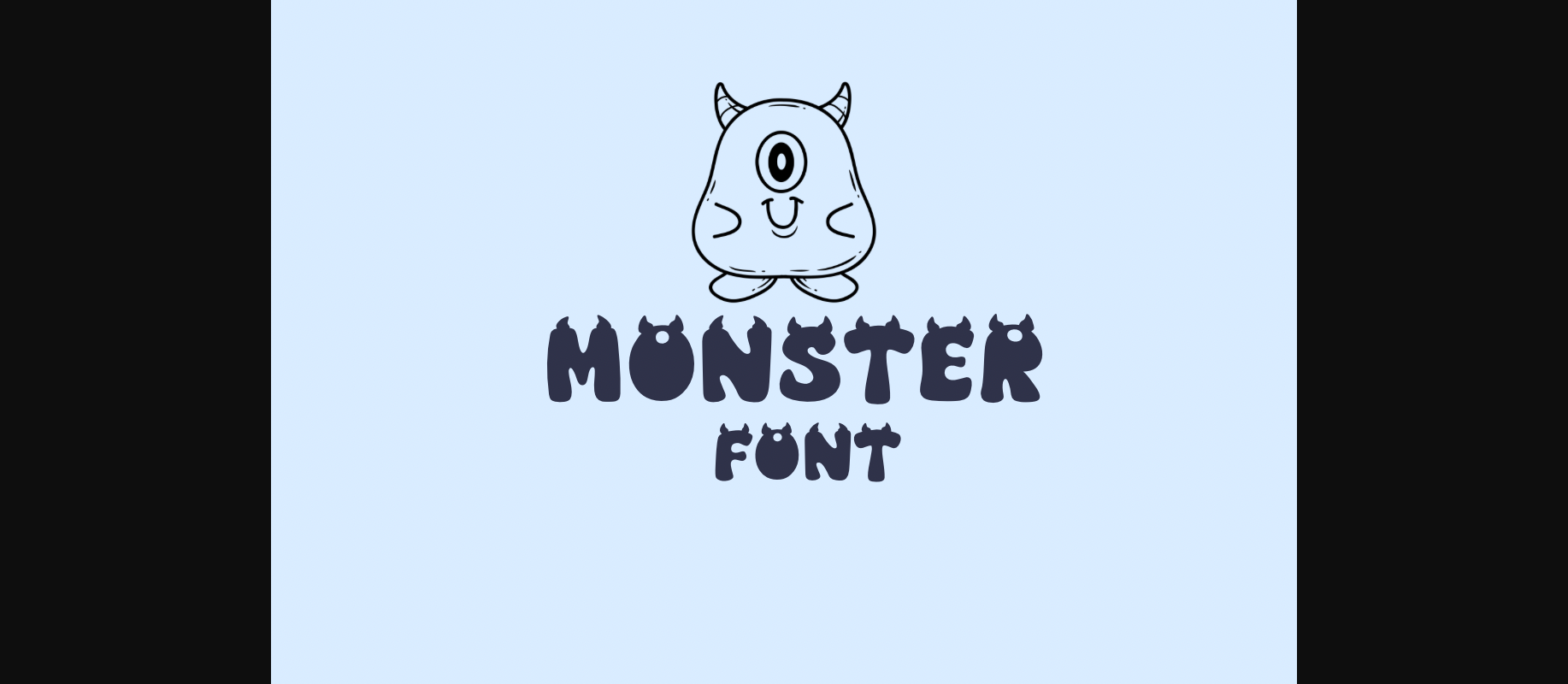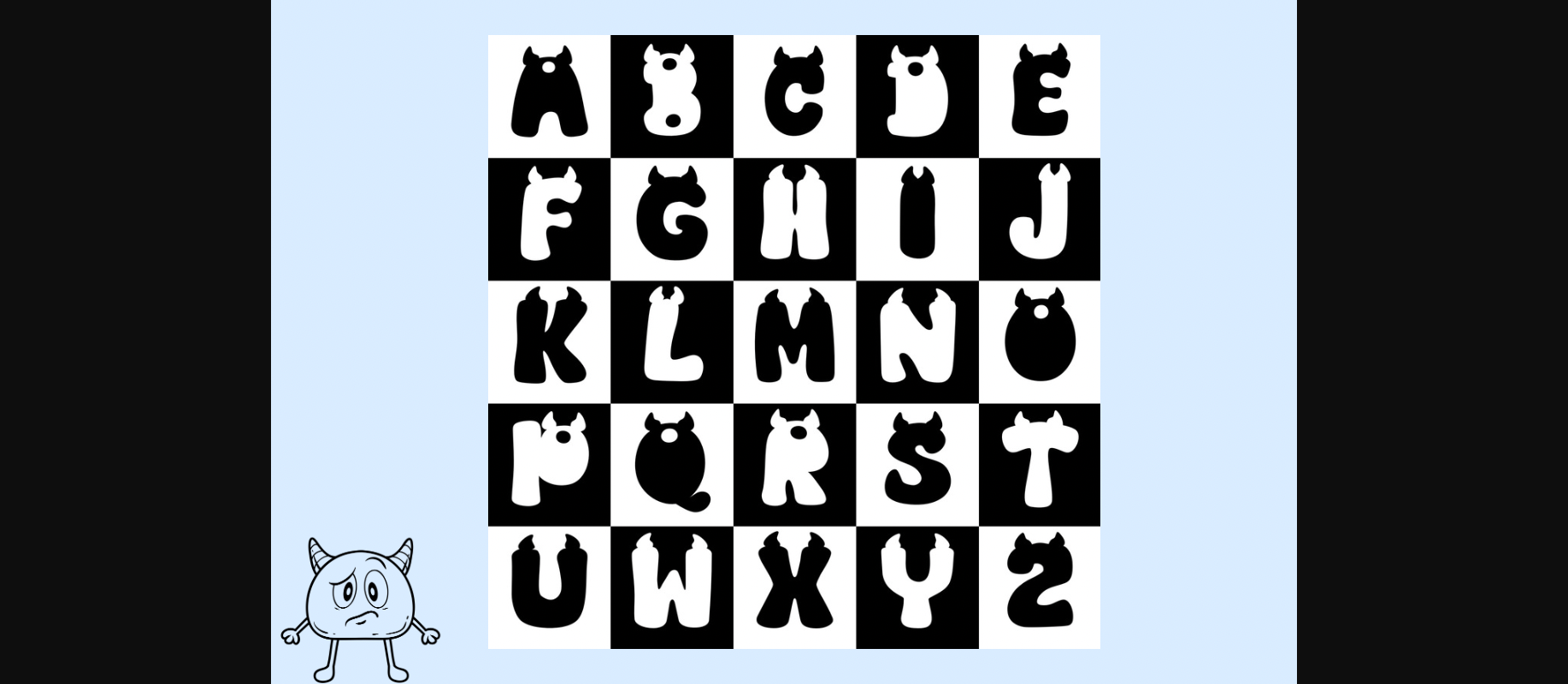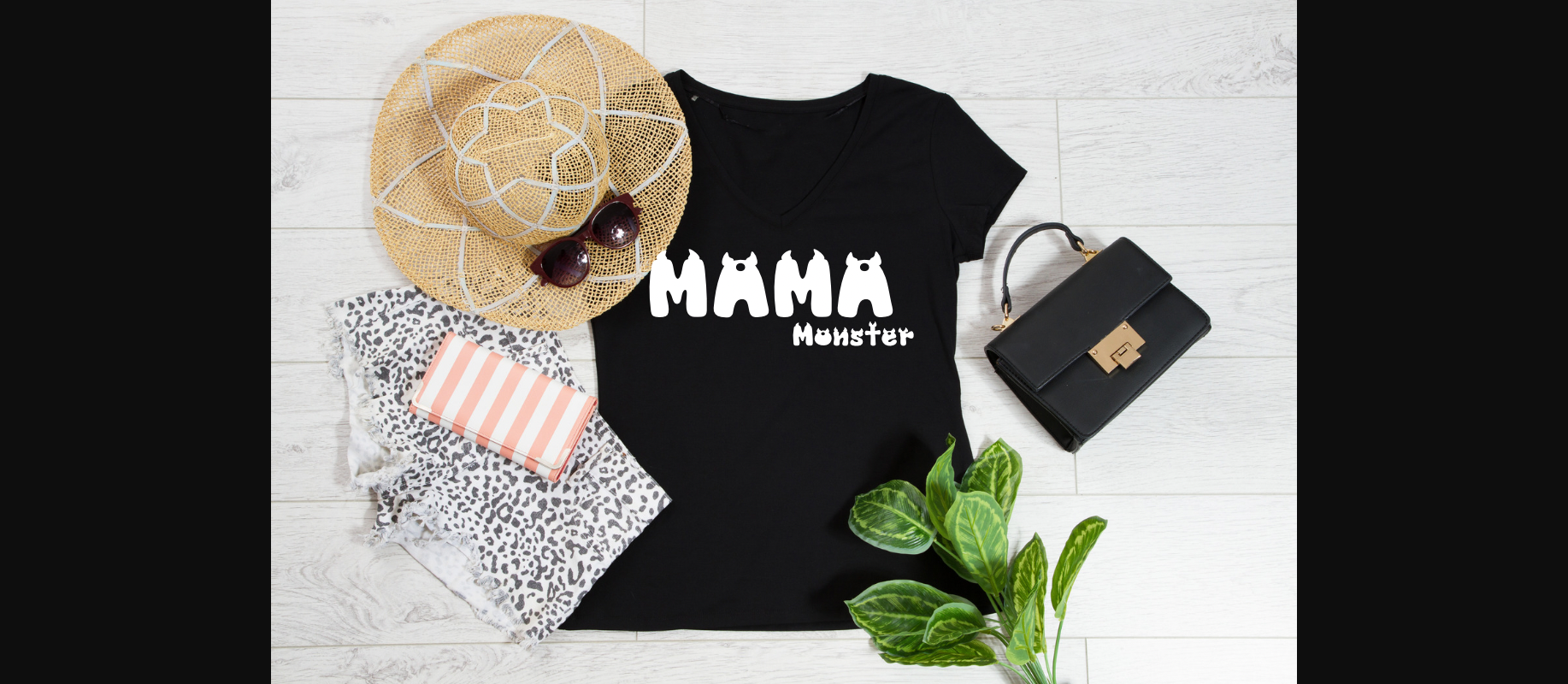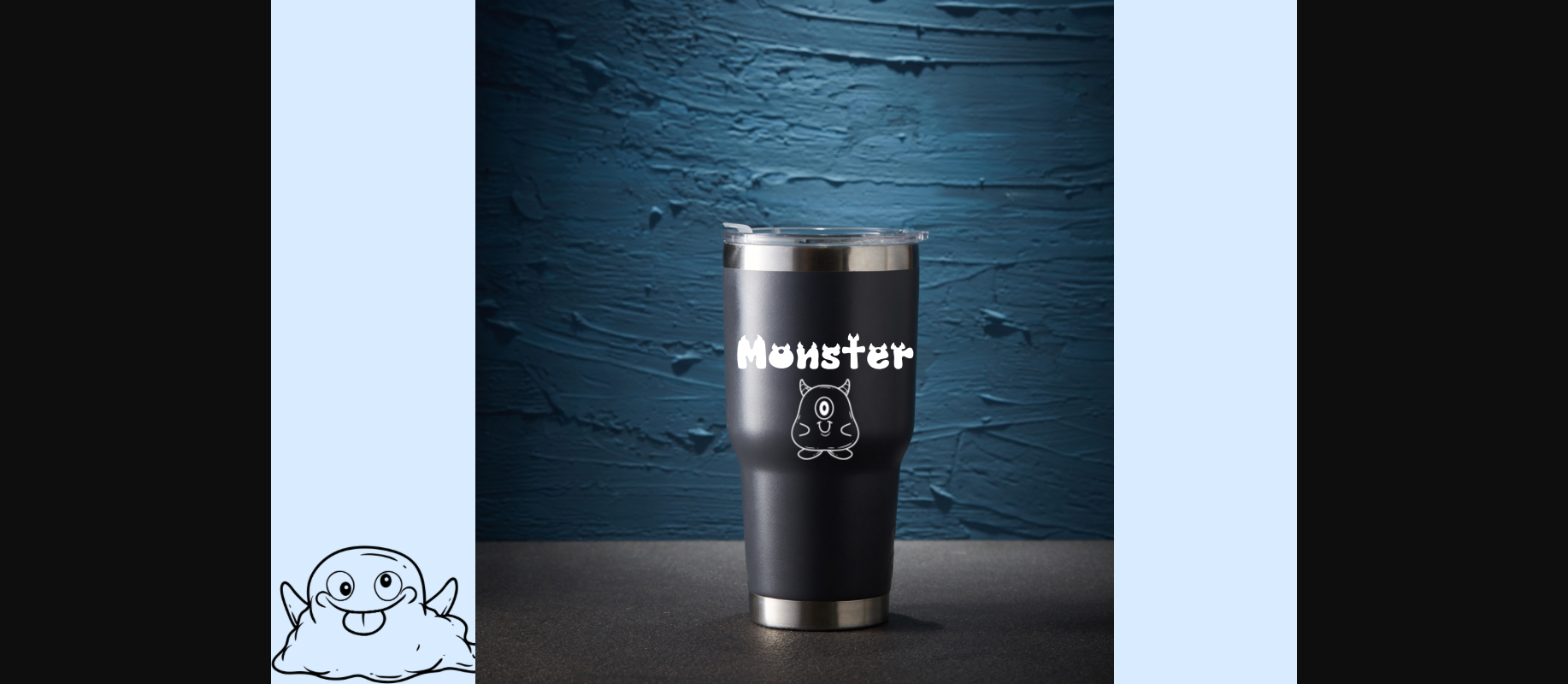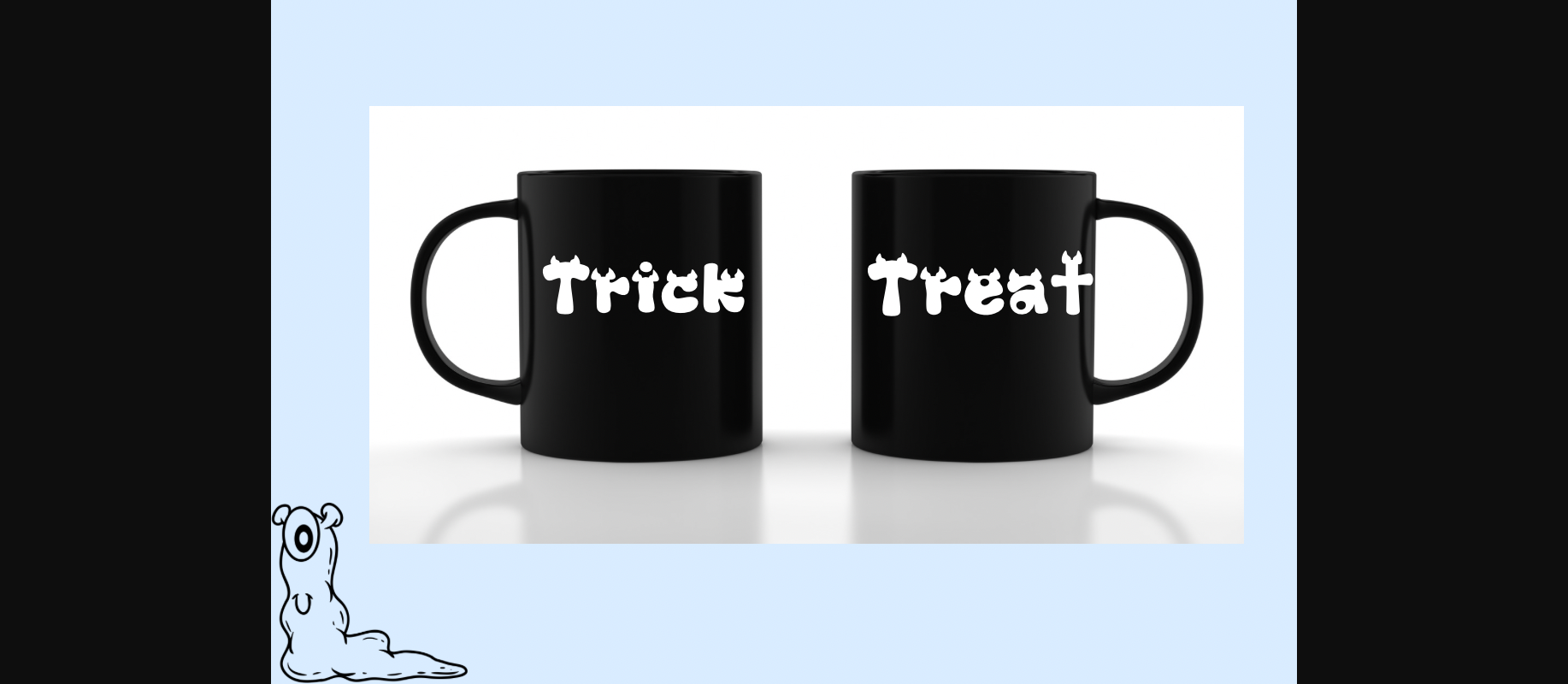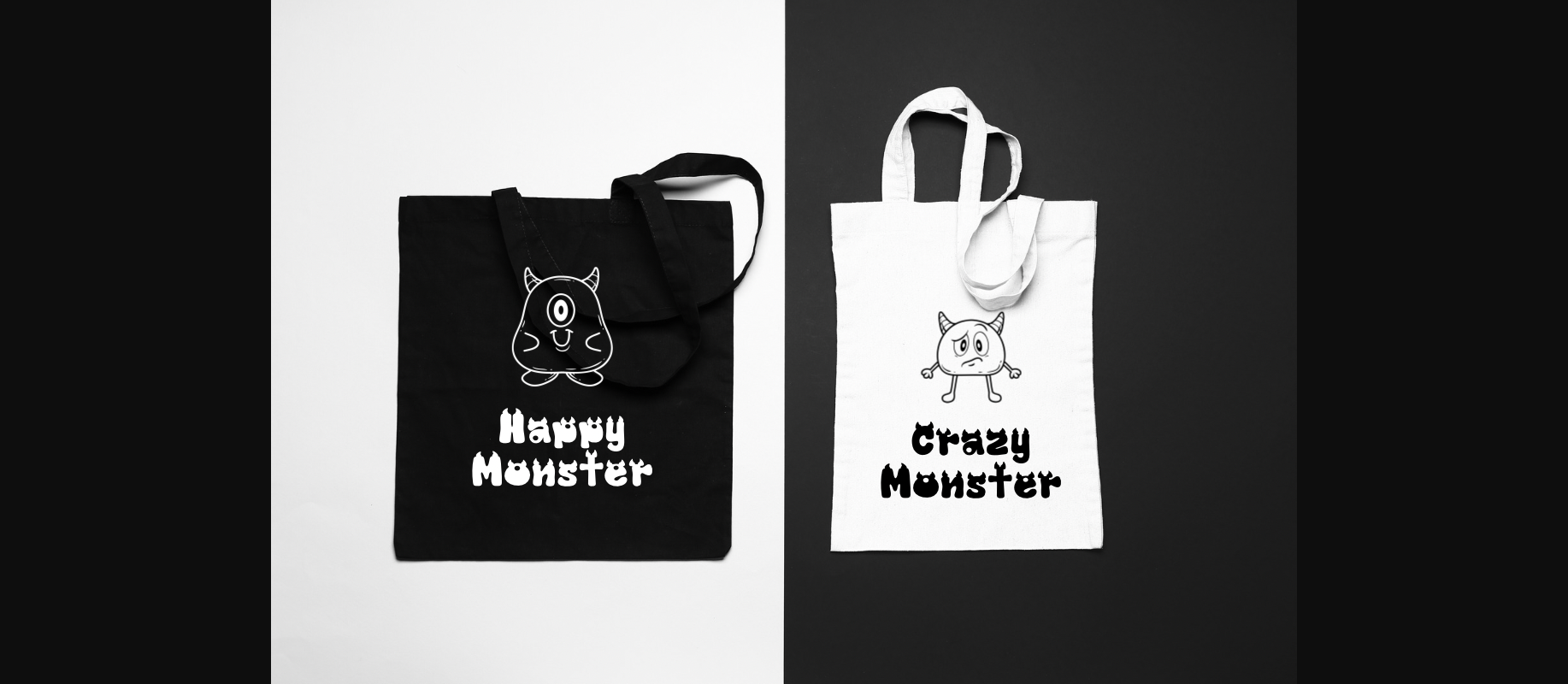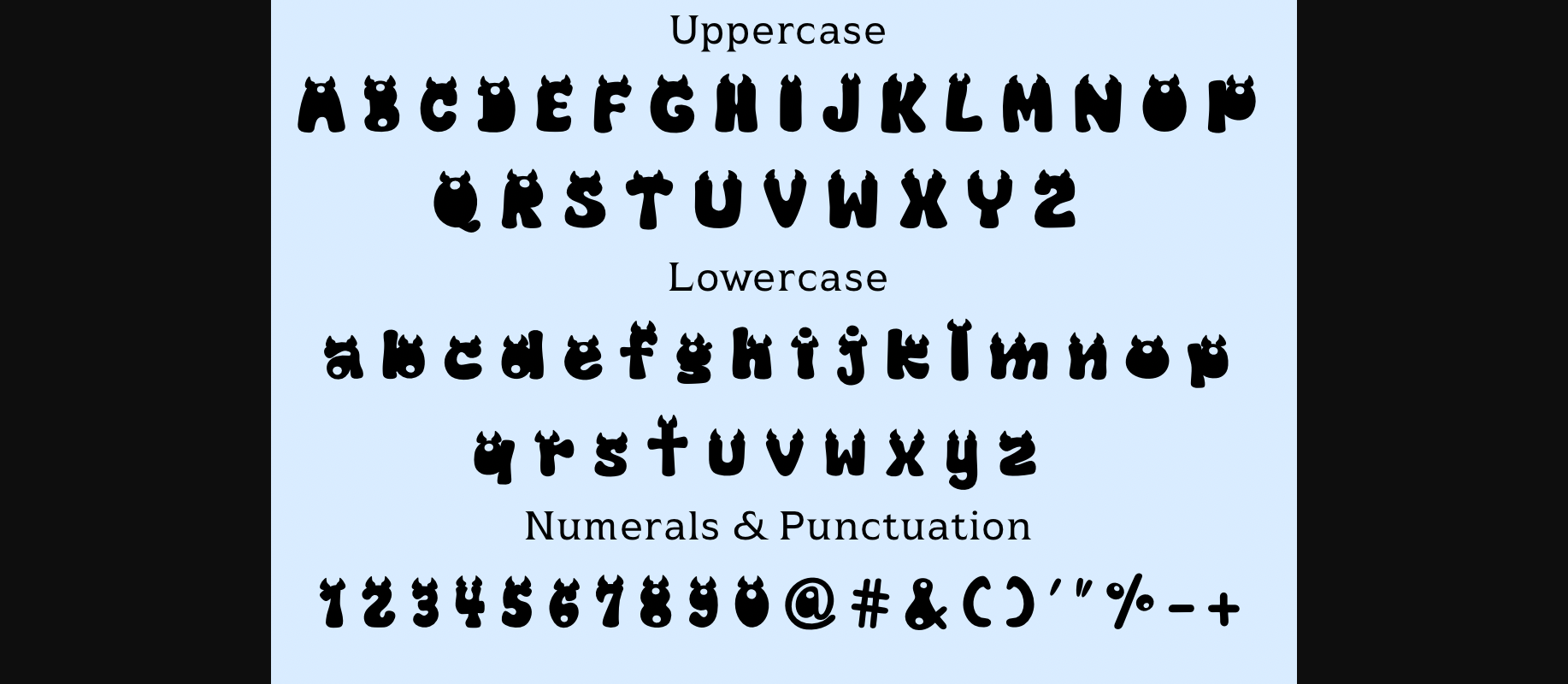
Monster Font
About Monster Font
“Monster” is a playful and chubby decorative font that adds a touch of whimsy to your designs. With little horns adorning the tops of its letters, this font brings a fun and mischievous character to your projects, making it ideal for creative and eye-catching displays.